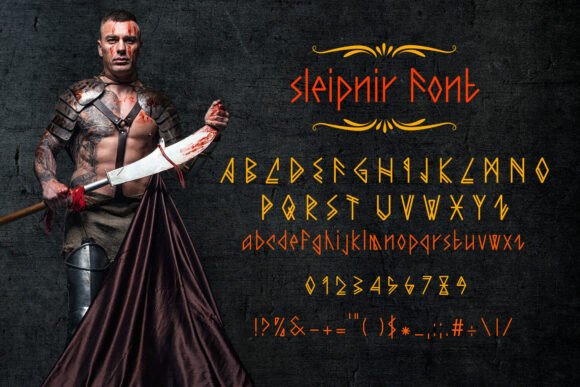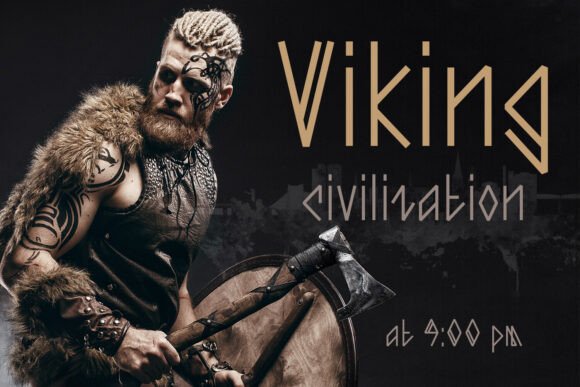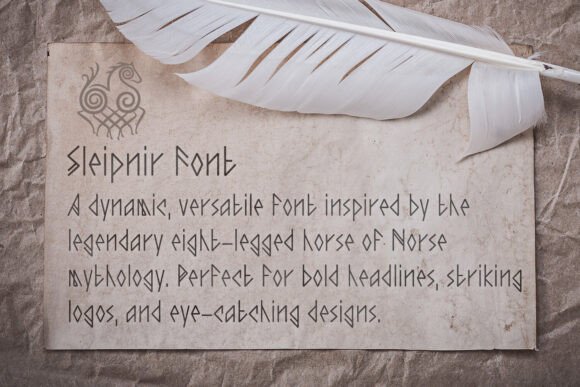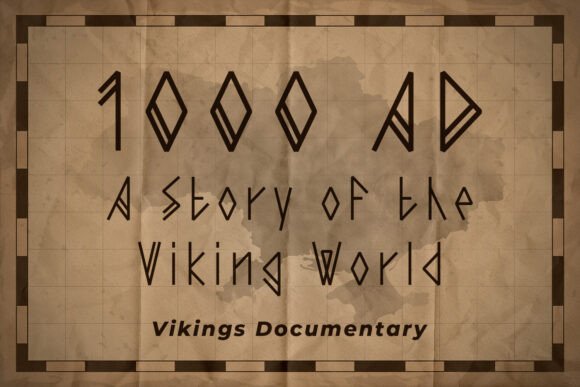
Introduction to Sleipnir Font
Experience the raw power and elegance of Norse mythology with the Sleipnir font.
This dynamic typeface, inspired by Odinโs majestic eight-legged steed, is perfect for bold headlines, striking logos, and eye-catching designs Its unique character shapes and bold strokes make it ideal for creating impactful visuals that demand attention.
Key Features of Sleipnir Font
Why Choose Sleipnir Font?
Sleipnir Font offers exceptional quality and versatility, making it a valuable addition to your design toolkit. Whether you’re creating for personal projects or commercial use, Sleipnir Font delivers professional results.